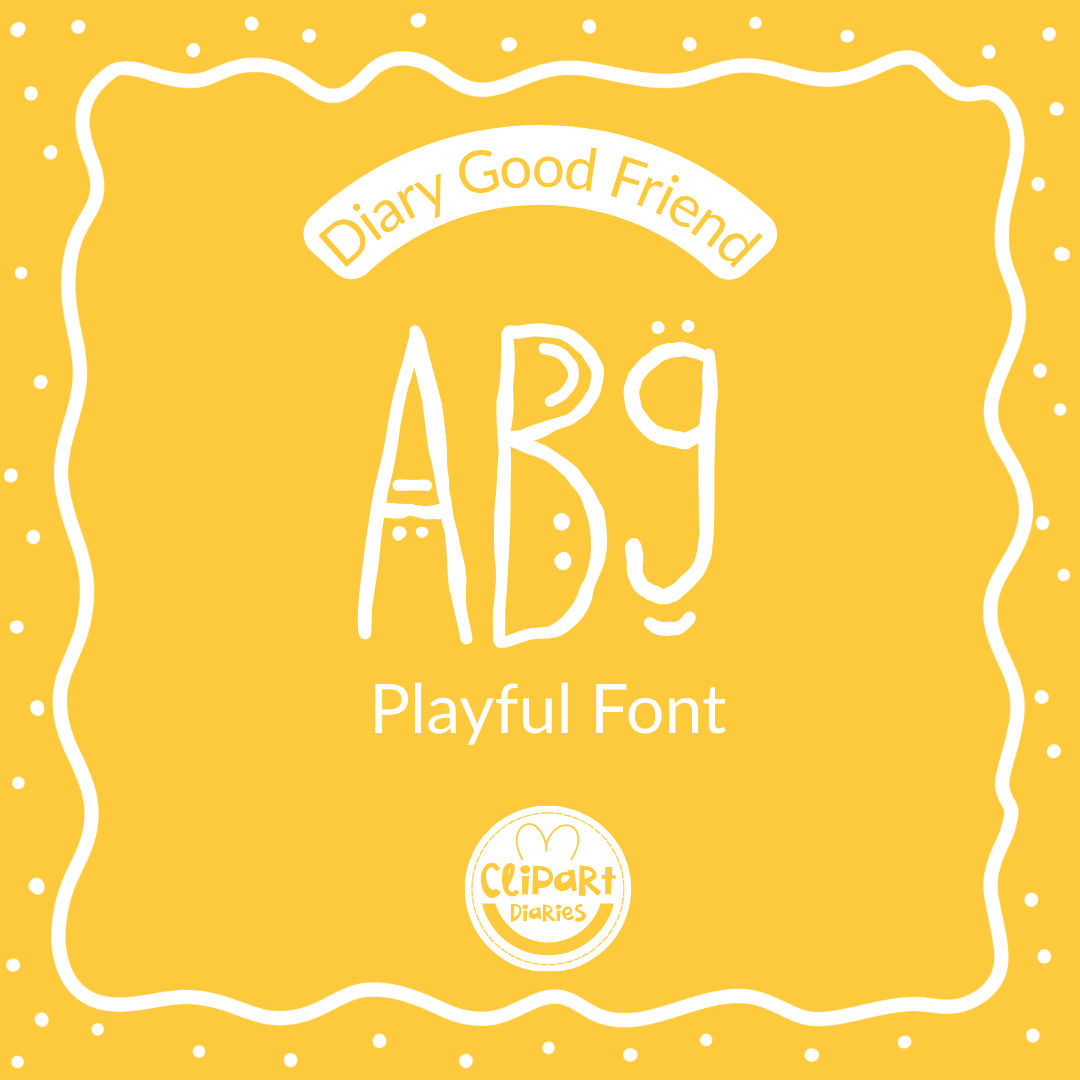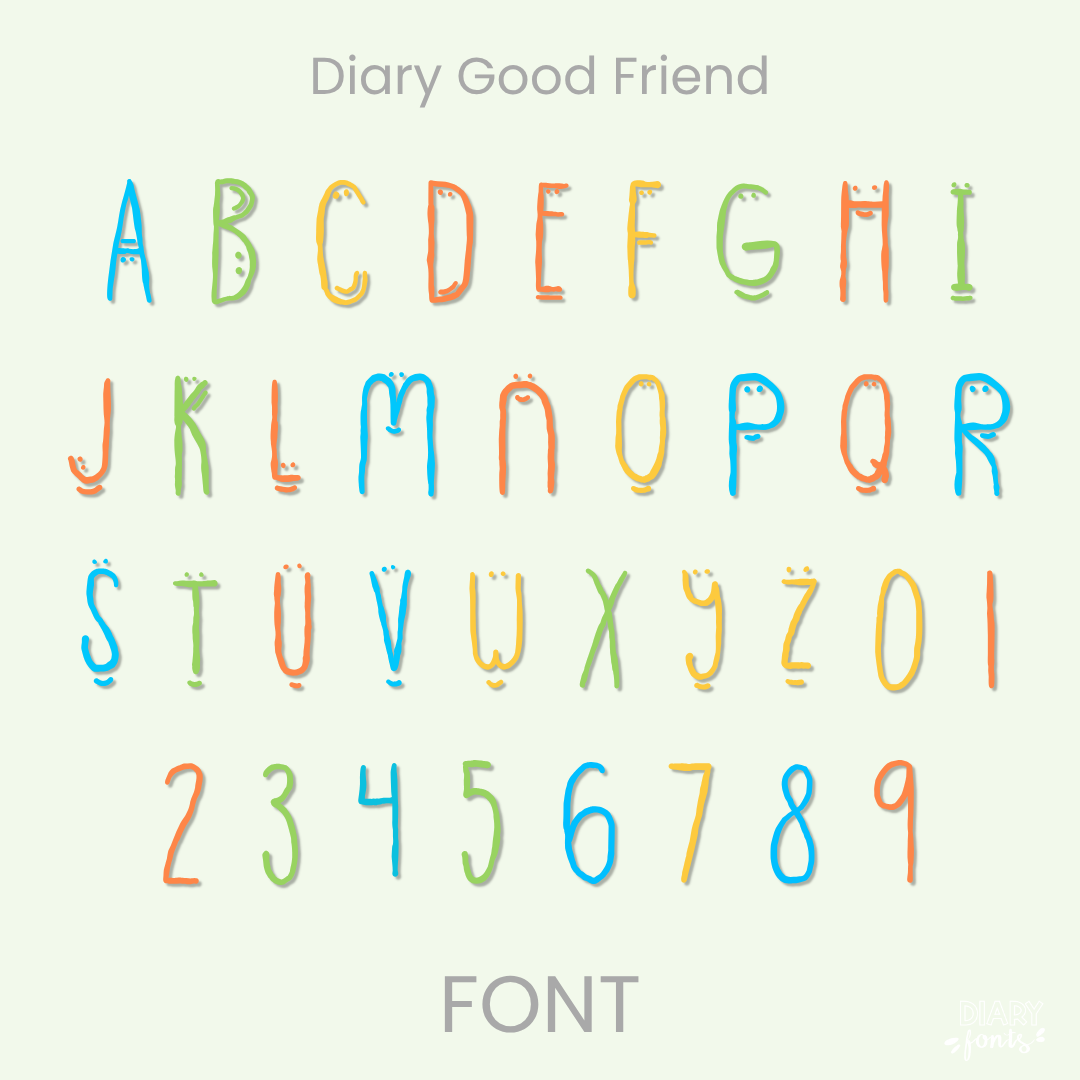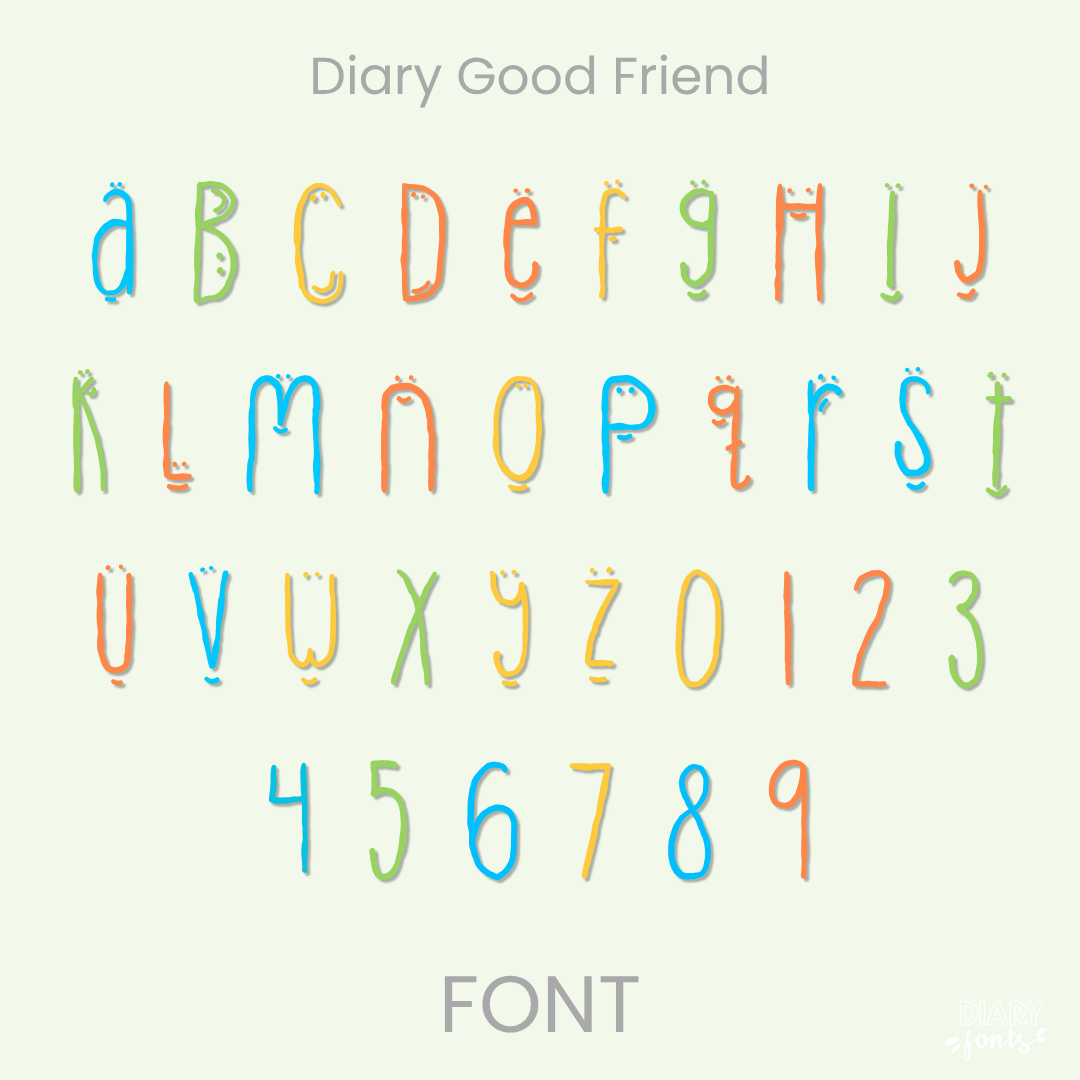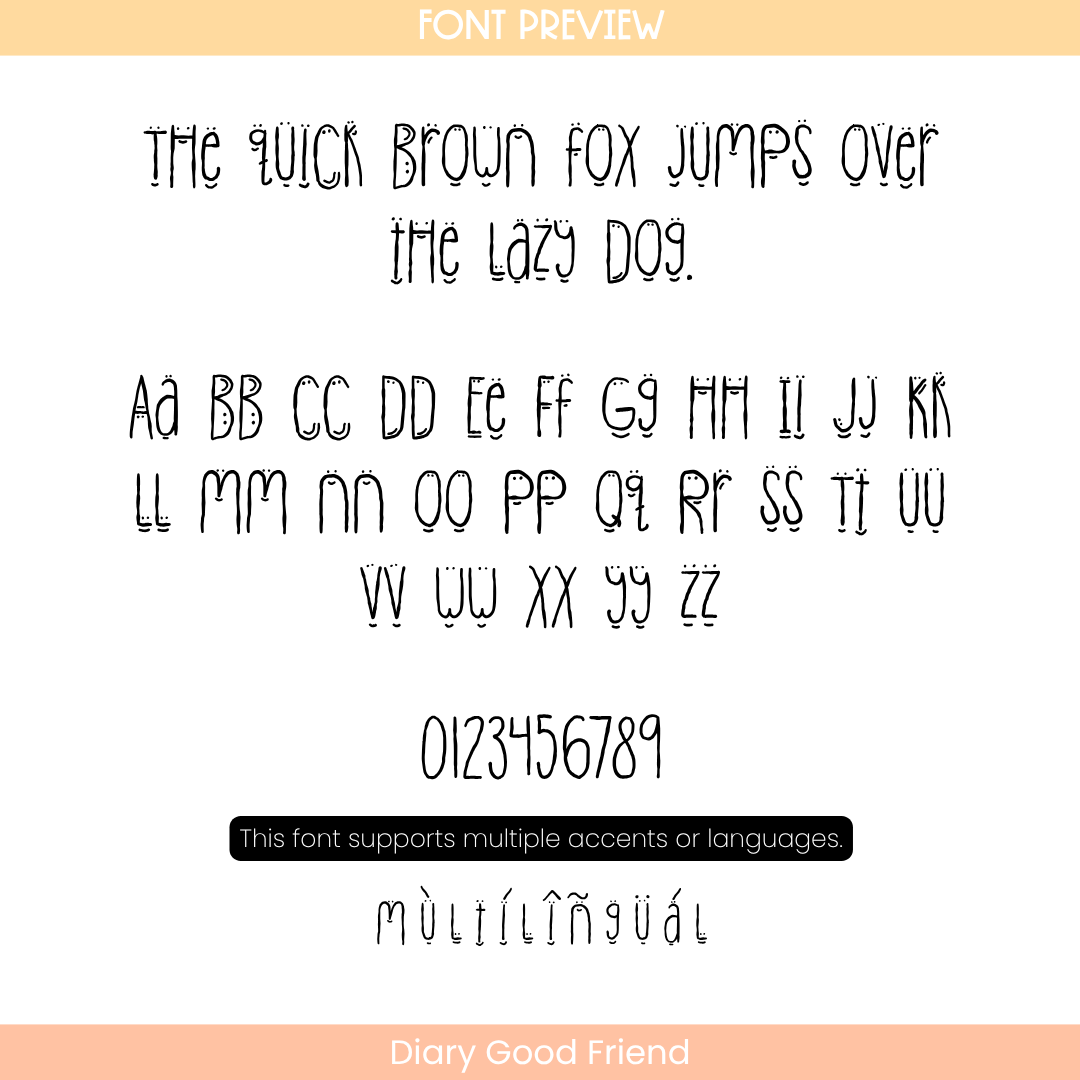
Diary Good Friend Font
The Diary Good Friend is a uniquely whimsical handwritten font that pairs traditional uppercase letters with an un-scanned, mixed-case layout structure to create a distinctly playful, organic look for titles and classroom accents.
If you want to give your teaching materials a truly customized and lighthearted feel, Diary Good Friend is an excellent choice. A closer look at the character sets reveals a fun, intentional twist: while the standard uppercase keys feature clean capital letters, the lowercase keys offer a unique mix of altered letter scales and informal shapes (like a playfully oversized lowercase-style “r” or stylized vowels). When typed out, this creates a joyful, unevenly bouncing rhythm where capital and lowercase aesthetics blend seamlessly together. It remains perfectly legible and thin, making it a wonderful fit for primary worksheet headers, creative task cards, and morning presentation slides where you want the text to look uniquely hand-drawn rather than computerized. The font includes a full set of alphabet characters, numbers, and accents to support different languages. It is ready for use in Canva, MS Office, and Adobe Apps, and it works flawlessly on the iPad with GoodNotes and Procreate.